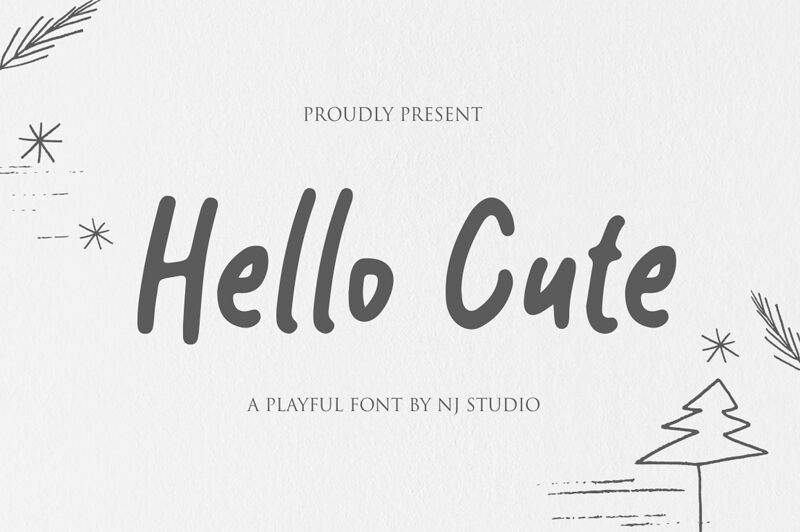
Hello Cute
Hello Cute font by NJ Studio exudes charm and personality with its delightful handwritten style. This free font captures attention with its playful curves and inviting character, making it perfect for projects that call for a personal touch. The gentle flow of each letter adds warmth, creating a welcoming aesthetic ideal for both casual and creative applications.
Hello Cute is particularly well-suited for branding, greeting cards, and social media posts where an approachable feel is desired. Its ease of readability ensures it shines in both digital and print formats.